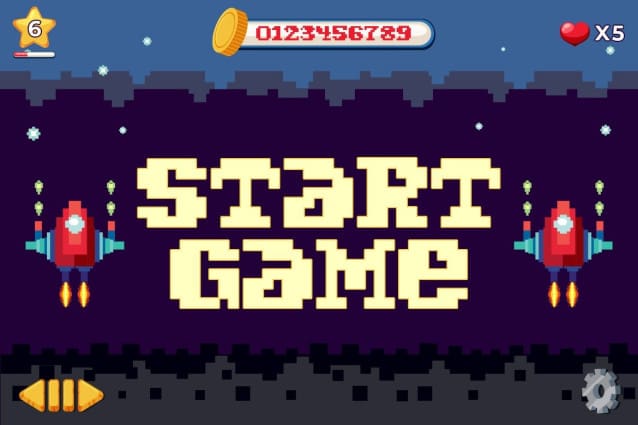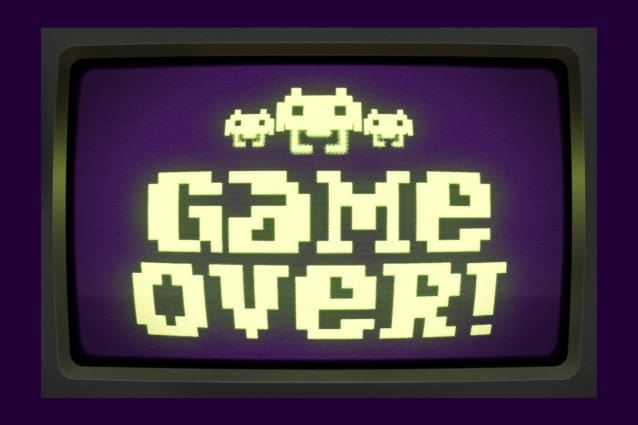
Groovy Pixel Font
Groovy Pixel Font is a charming Pixel Display Font reminiscent of retro video game aesthetics. The font style features a nostalgic pixelated design that is perfect for creating a retro vibe in game design themes.
Its playful and vintage look makes it versatile for various applications, adding a fun and unique touch to any project.
Whether you are working on a gaming project or looking to infuse some retro flair into your designs, Groovy Pixel is the ideal font choice.